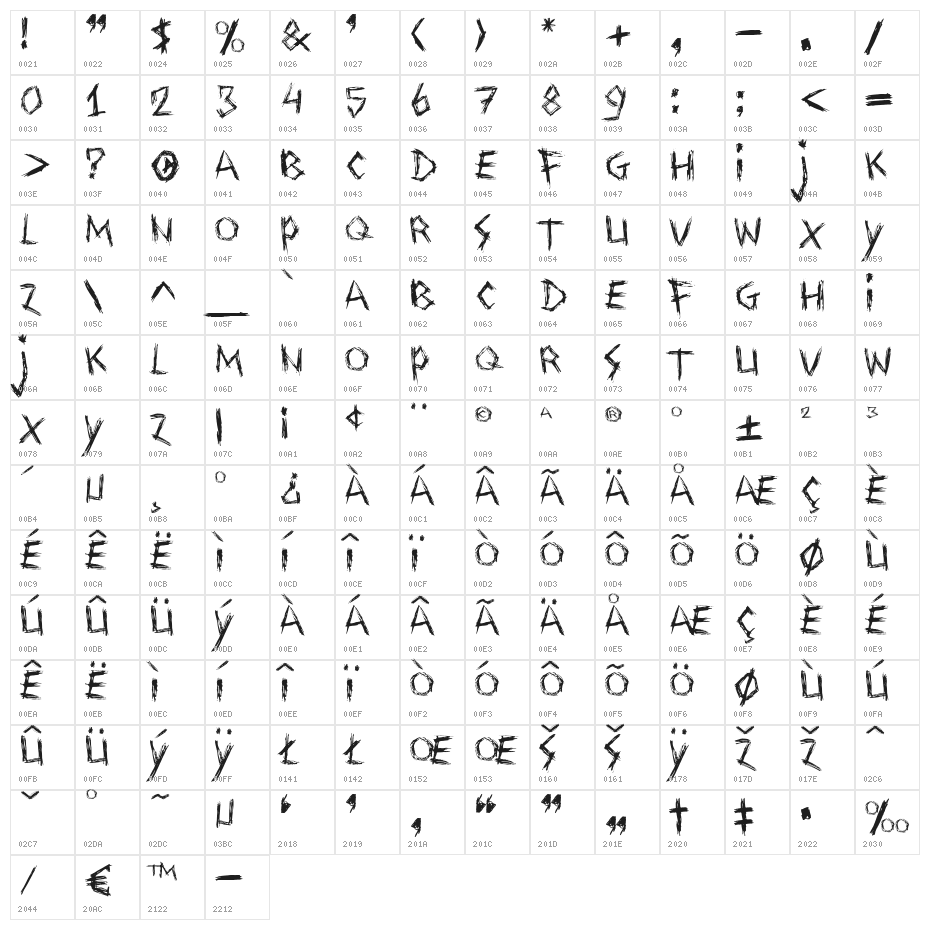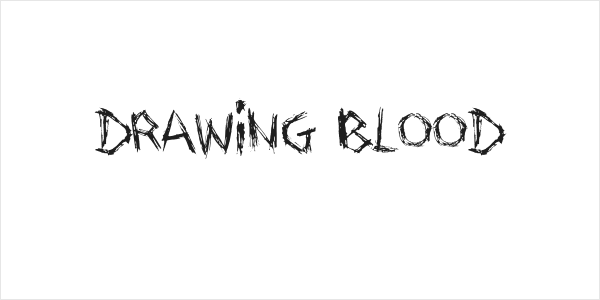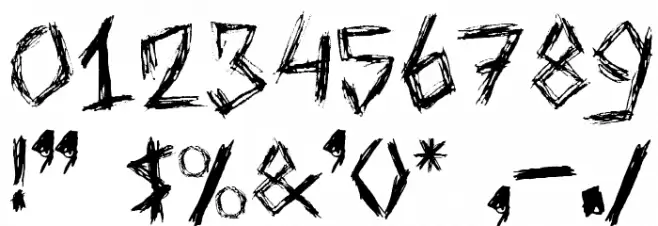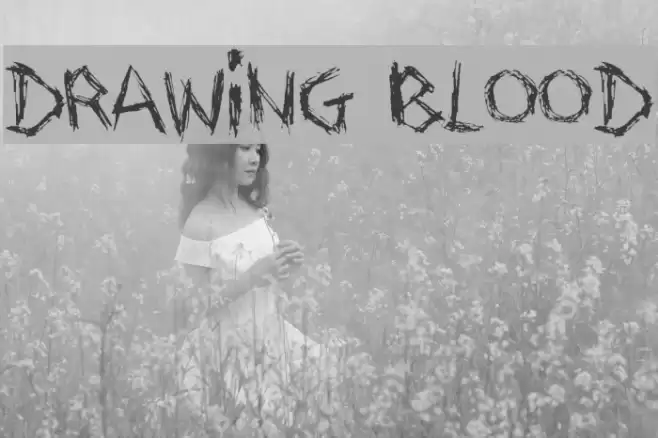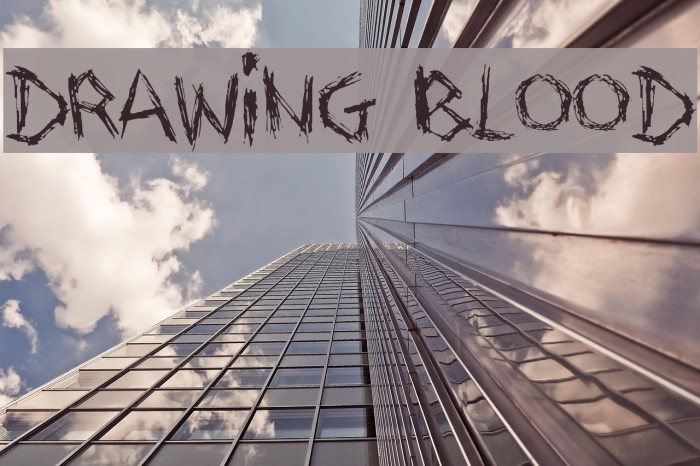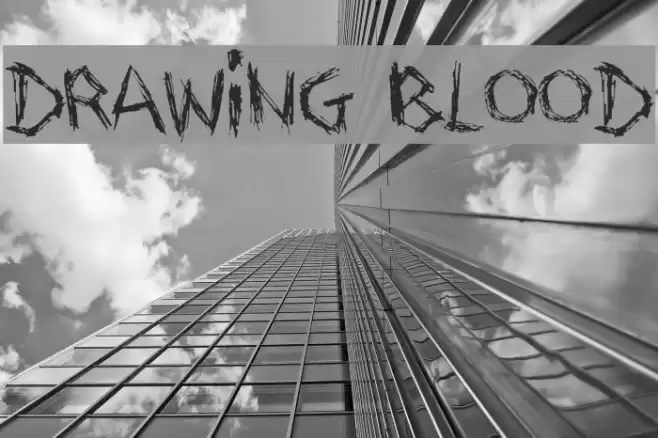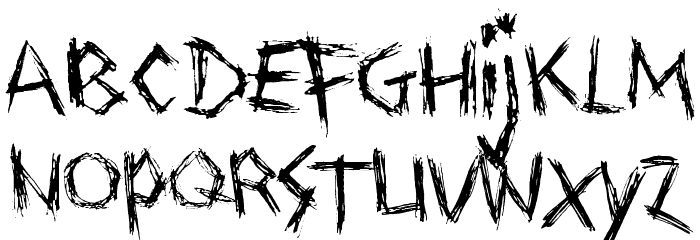
Drawing Blood Font
Drawing Blood Description
This font exudes a raw, edgy aesthetic with its jagged, hand-drawn appearance. Each character is crafted with irregular, sharp strokes that give it a chaotic and intense feel, reminiscent of graffiti or horror-themed designs. The uppercase and lowercase letters maintain a consistent style, while the numbers and special characters follow suit with their rugged, distressed look. This font is ideal for projects that require a bold, unconventional statement, capturing attention with its striking and rebellious nature.
| Proposed Projects | Perfect for horror-themed posters, edgy album covers, graffiti art, and rebellious branding. |